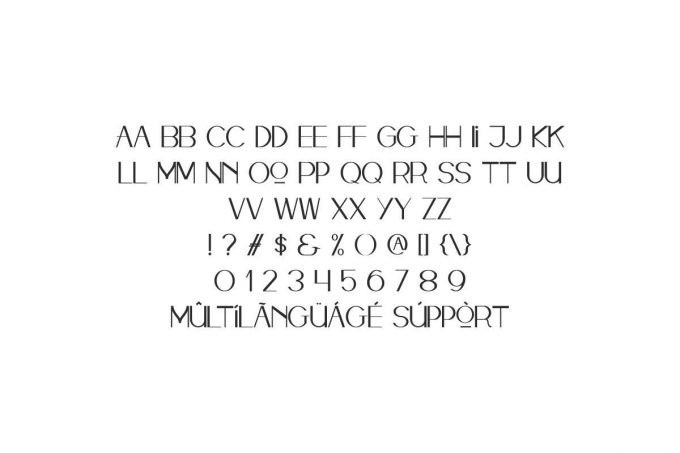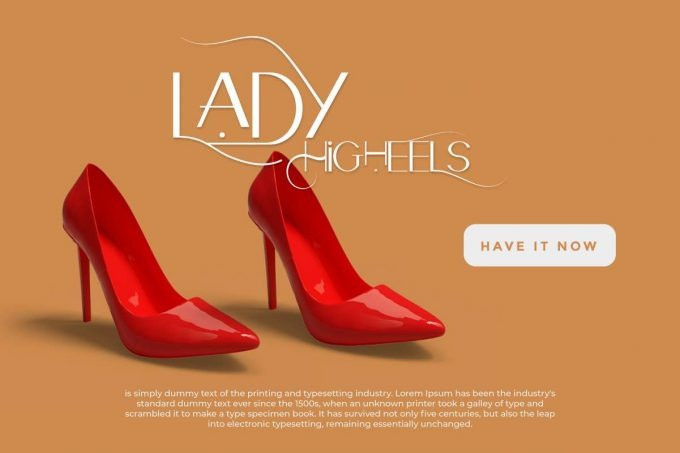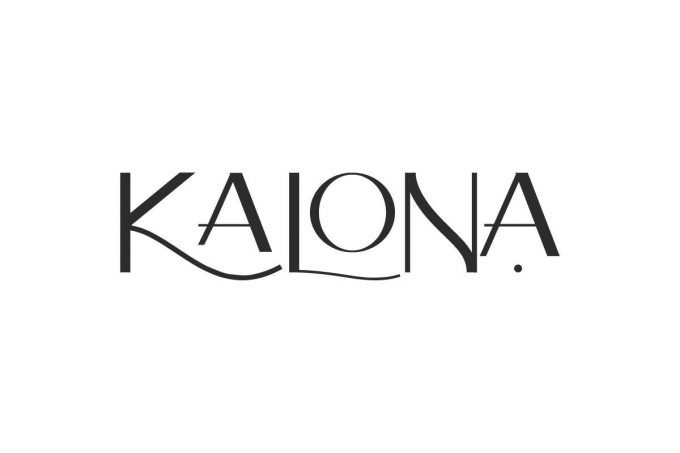
Monteral Display Font
FF Monteral is a serif typeface inspired by the industrial revolution in manufacturing, transportation, and social structures, etc.
FF Monteral comes in 2 Display Face. Ideal for product names, packages, labels, and everything with specific characteristics of past times.